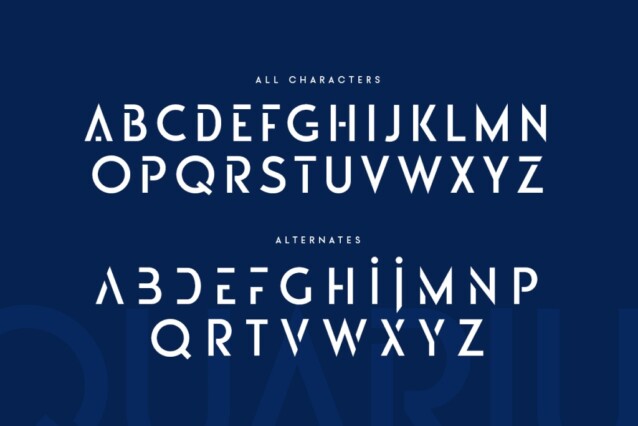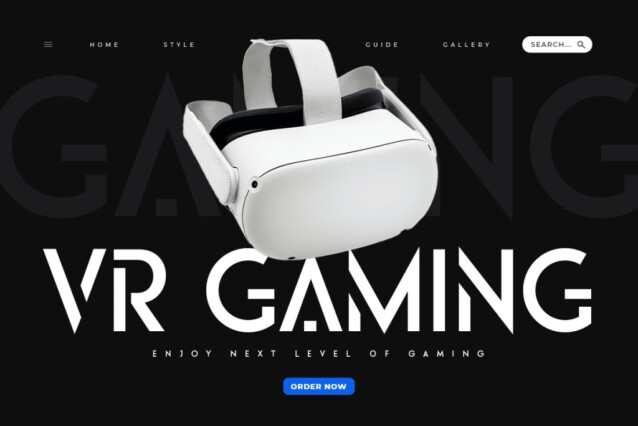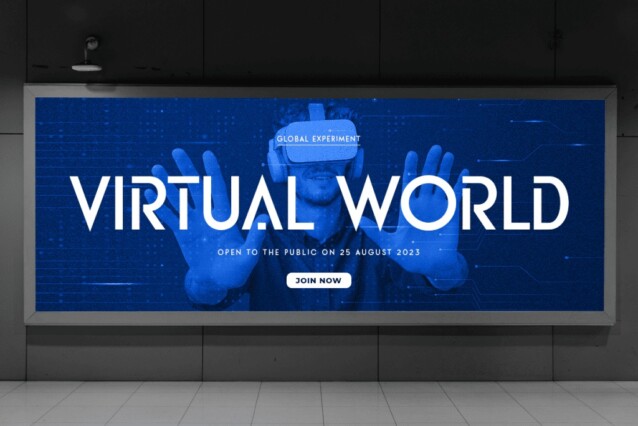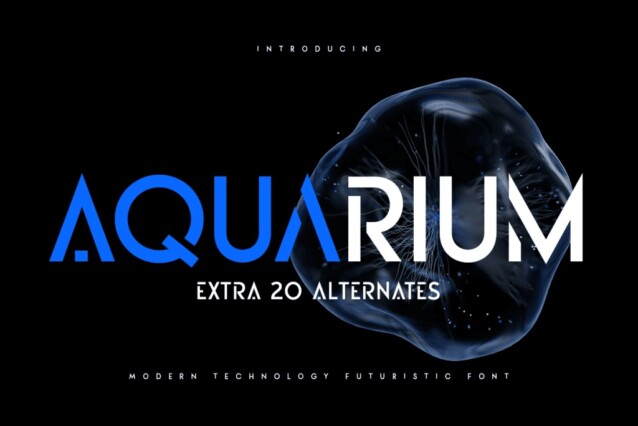
Aquarium Font
Aquarium Font is a strong, modern tech font with clean, bold lines. Made from font designer named Sensatype Studio. It is a sans serif display font with sharp shape that perfect for technology branding projects, logo, wedding designs, social media posts, advertisements, product packaging, product designs, label, photography, watermark, stationery, and any projects, it makes with a high level of legibility.